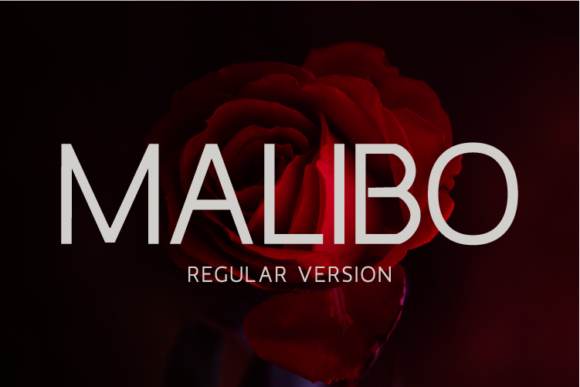
Introducing Malibo Regular Font, a captivating sans serif font that entwines classic inspirations with modern flair. Created by Huntype, this font family exudes timeless elegance, offering a rich visual tapestry that elevates your designs to new heights.
Malibo's distinct Latin details dance across your screens, forming words that leap off the page with a dynamic harmony. Its well-balanced letterforms boast striking contrasts, ensuring your creations capture attention effortlessly.
Unleash Malibo's versatility and transform your designs into works of art. Its adaptability shines through, whether you're weaving captivating headlines, crafting compelling reports, or composing enchanting stories.
Step into a world of sophisticated typography with Malibo Regular Font. Its meticulously crafted curves and sharp angles weave together a visual symphony that adds a touch of luxury to any project.
Experience the boundless possibilities of Malibo and witness the transformation of your designs. Its charm lies in the details, inviting you to explore a realm where beauty and functionality seamlessly intertwine.